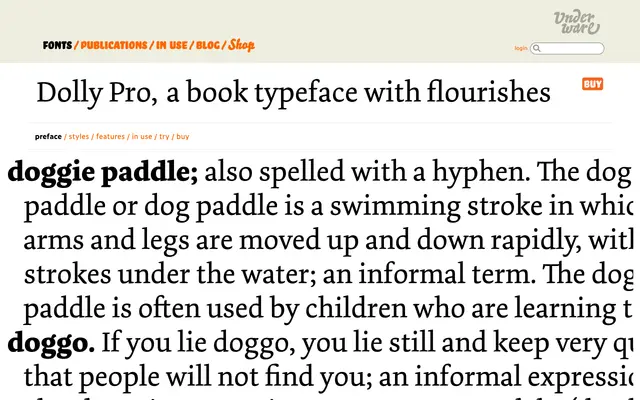
A humanist text serif from Underware, built for sustained reading with warm, pen-influenced letterforms.
Dolly is a book typeface from Underware, shaped by humanist calligraphic tradition and intended for long-form text setting. Its organic curves and carefully considered spacing make it well-suited to literary publishing and editorial contexts where warmth and legibility over extended passages matter. The family includes italic cuts that complement the roman with equal care.
Dolly is a text serif by Underware with humanist characteristics, designed for extended reading. The page content is minimal but Underware's Dolly is well-documented as a book typeface with organic, pen-influenced letterforms.